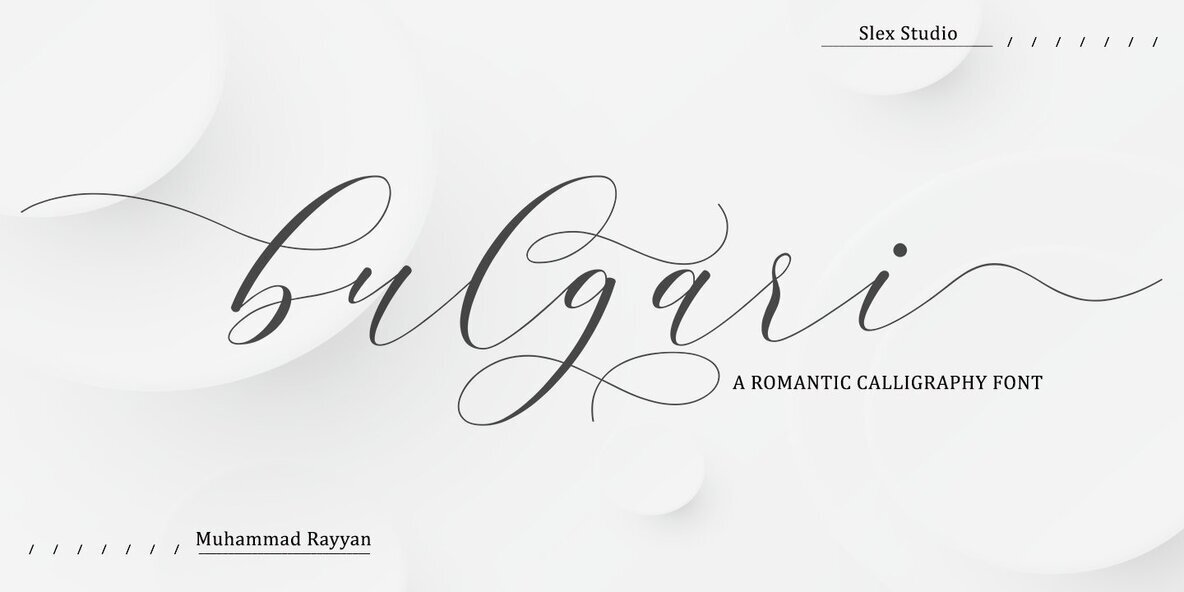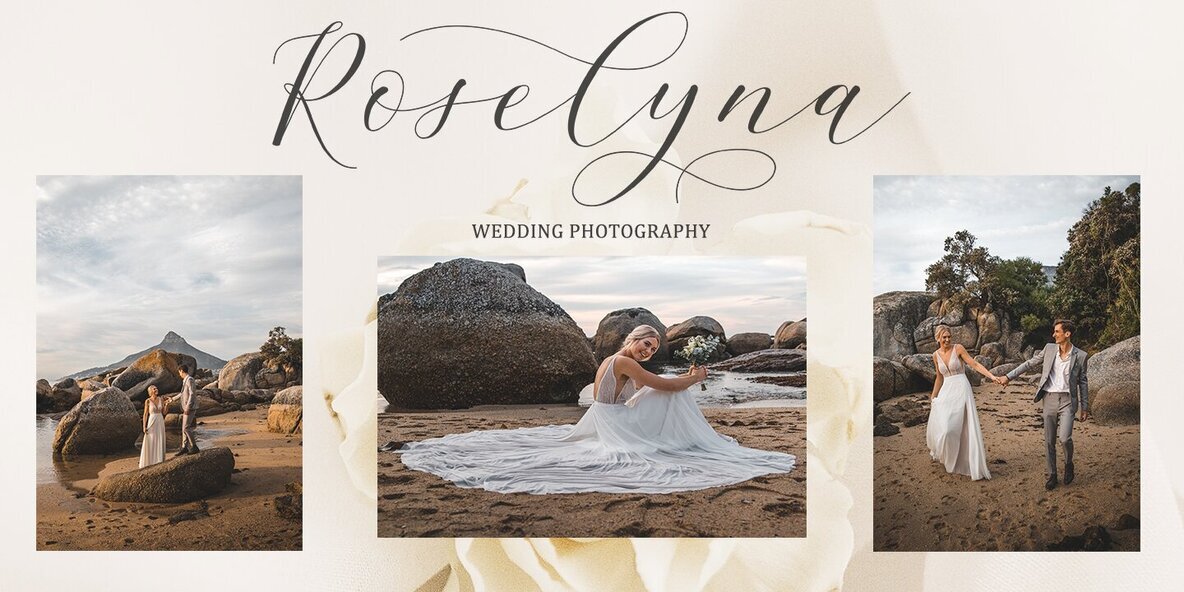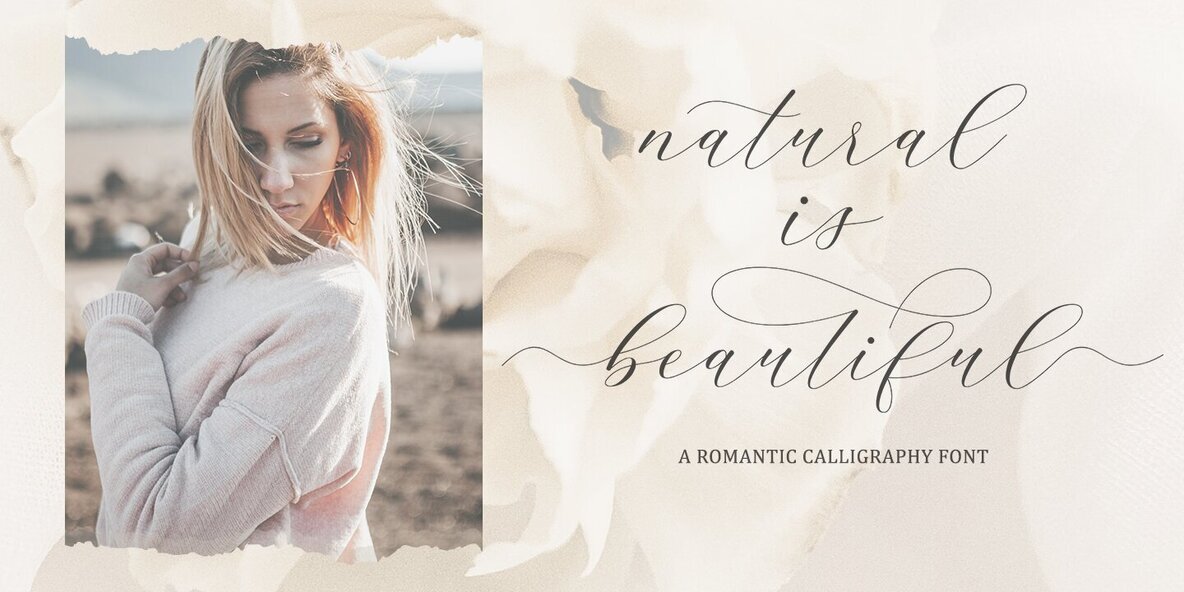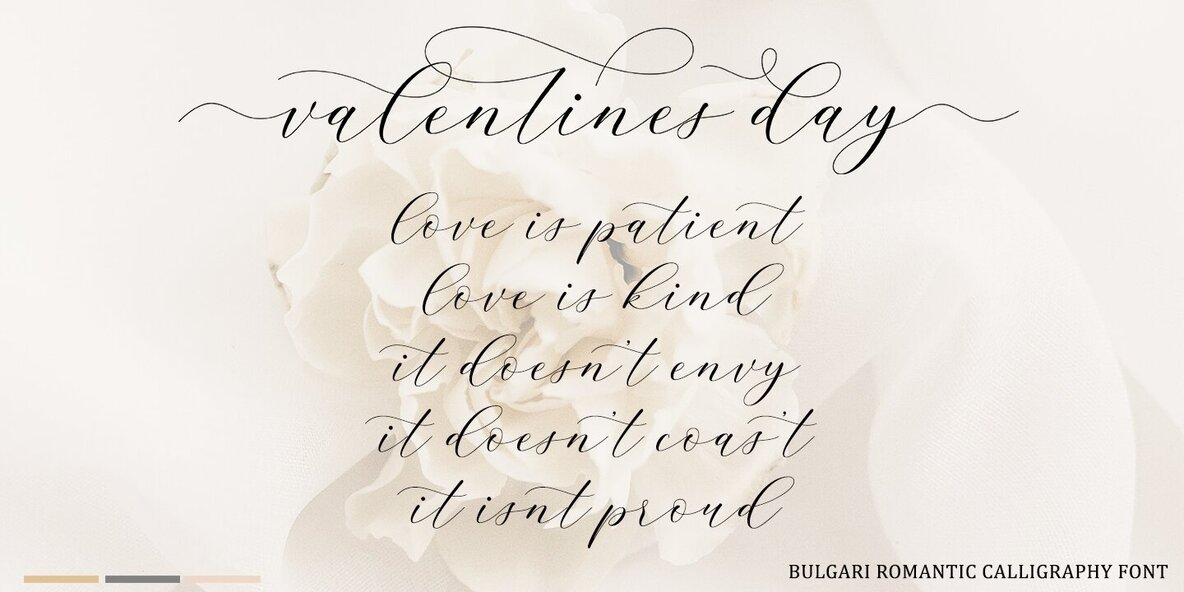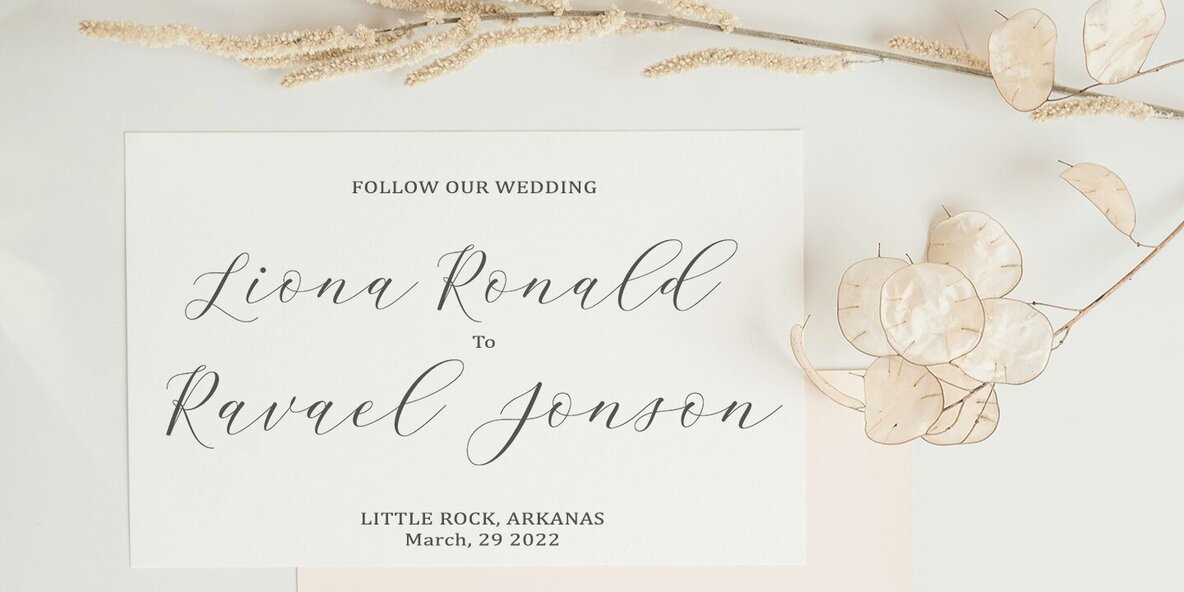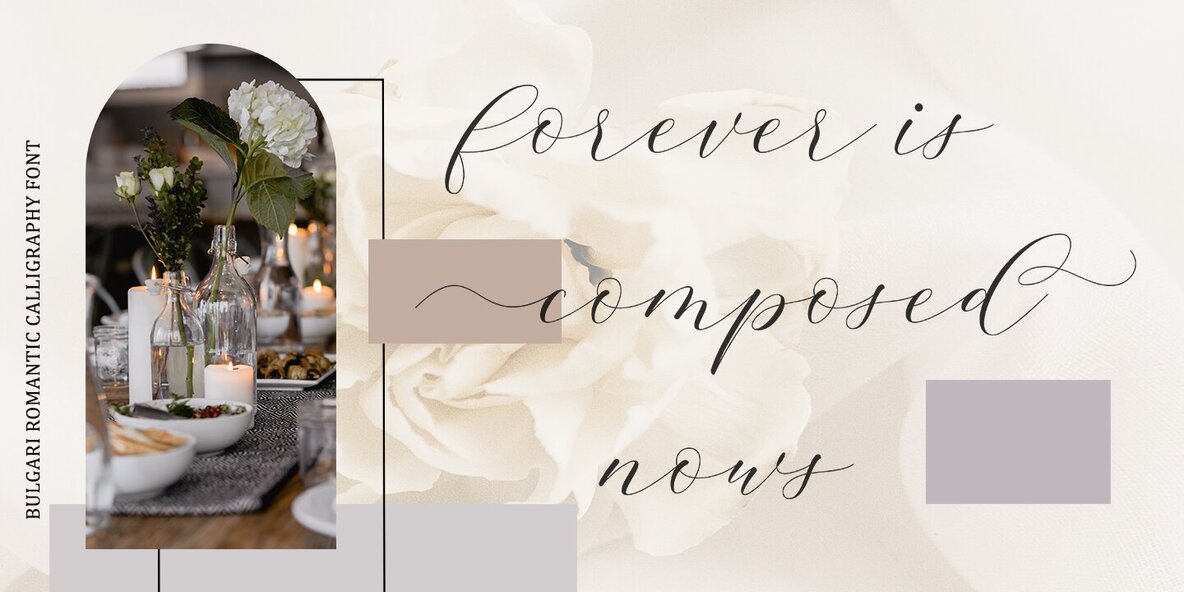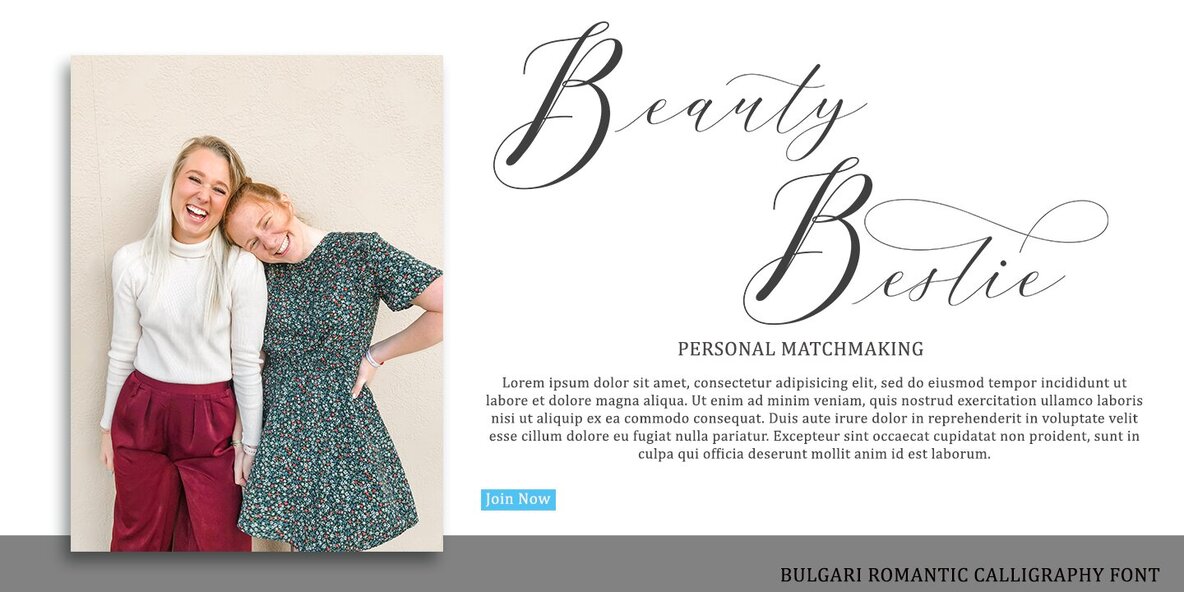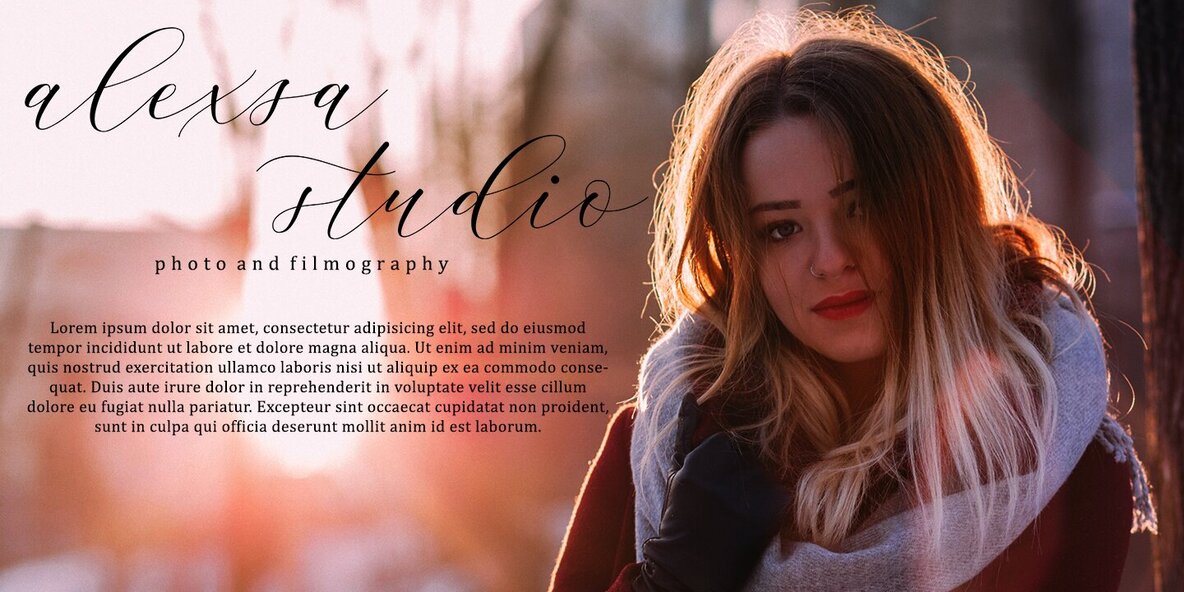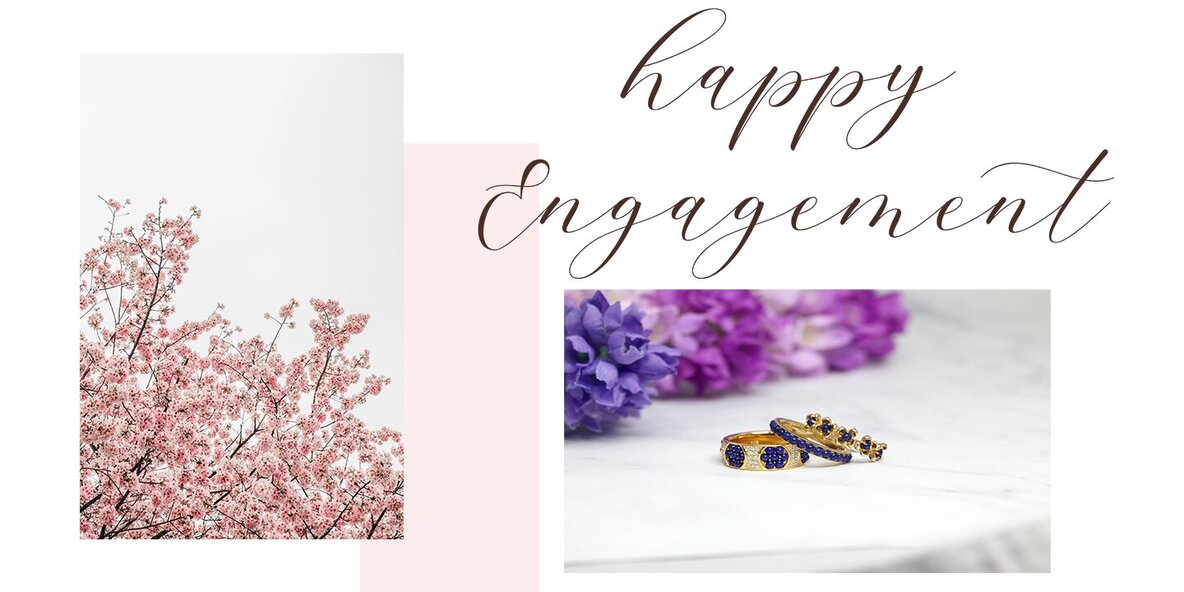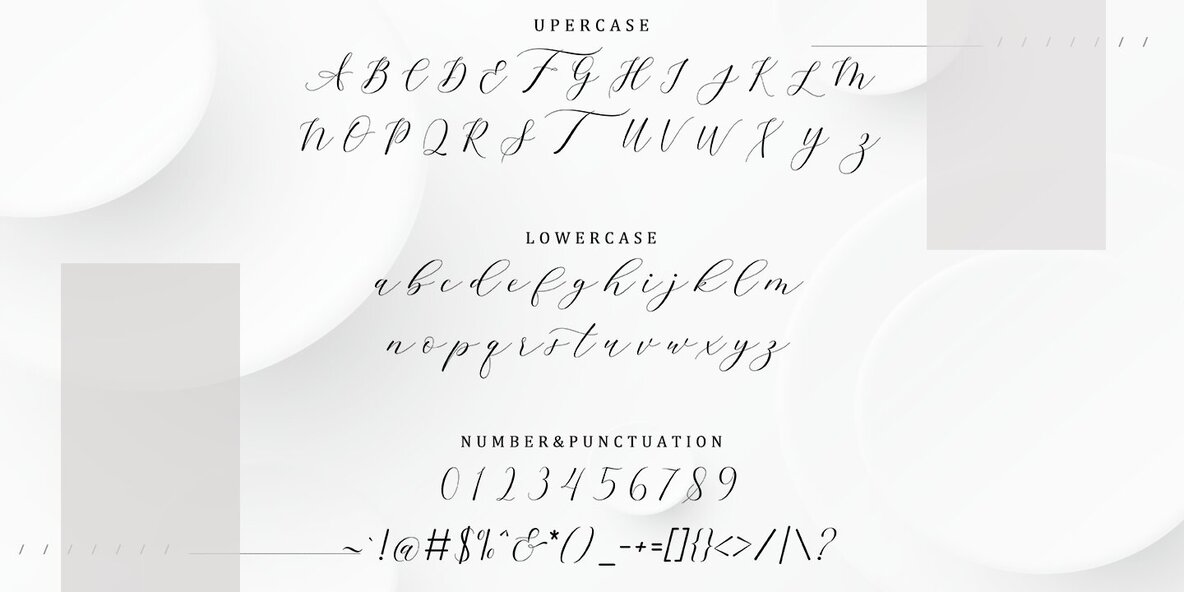
Bulgari
Step into the world of Bulgari, an exquisite handwritten font designed by Slex Studio. With its organic and authentic appeal, Bulgari effortlessly blends modern simplicity, making it perfect for a variety of applications. Whether you're crafting branding materials, creating elegant wedding invitations, or designing eye-catching product packaging, this font brings an unmatched charm to your projects.Bulgari: The Organic Handwritten Font